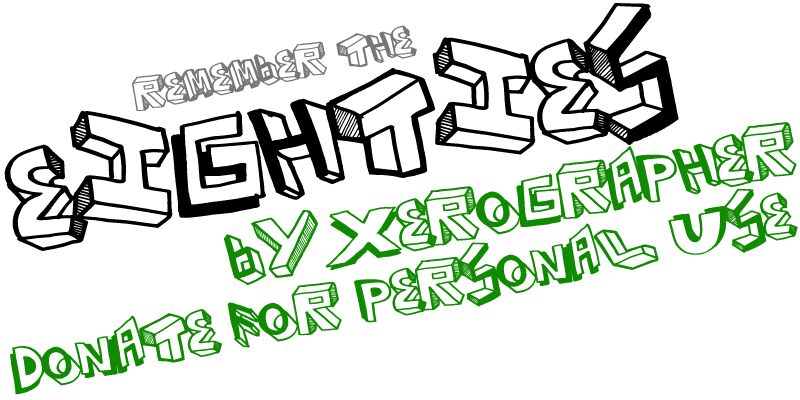
Eighties by Max Infeld of Xerographer.com is a free comic display font with outlined, three-dimensional letters and a deliberately unruly silhouette. Its chunky capitals buckle and overlap above striped side shading.
1980s graffiti-comic styling makes it a lively fit for music posters and retro event graphics. The exaggerated depth also suits arcade artwork, youth merchandise, and playful packaging. Across these settings, its crooked drawing points directly to cartoons, street art, and loud pop culture.